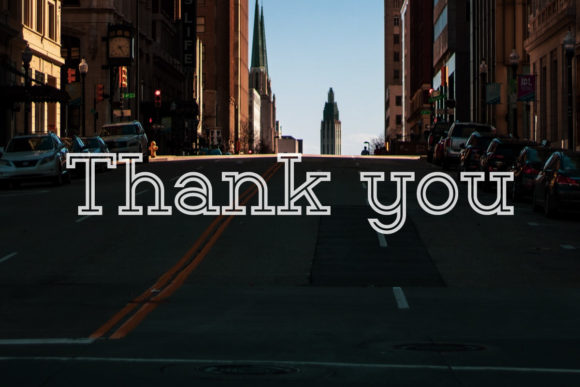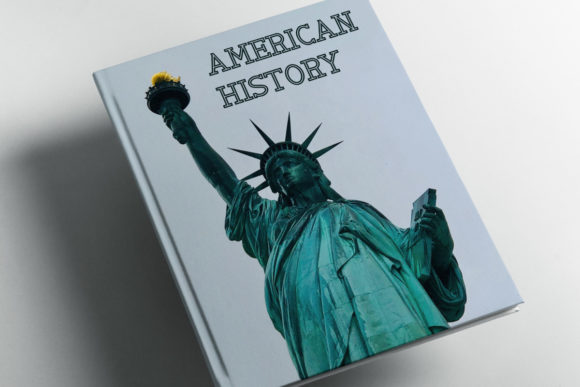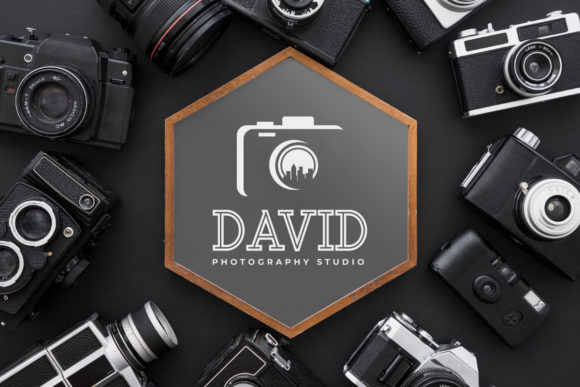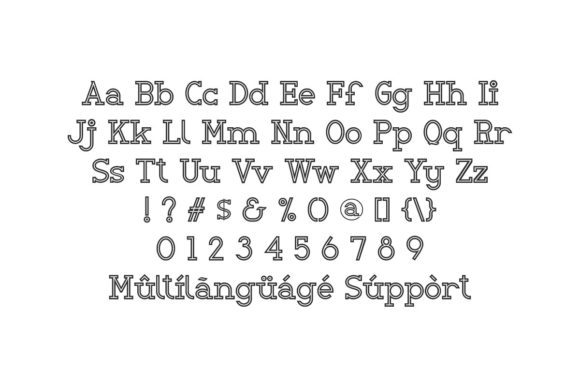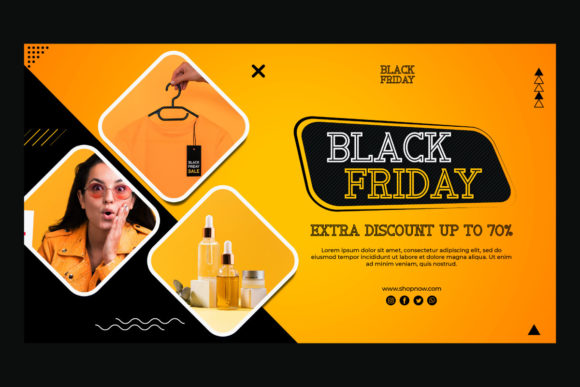
MERTZTOWN FONT SPECIMEN
Introducing Mertztown, a cool and classic slab serif font that brings a touch of timeless appeal to your designs. With its versatile nature, Mertztown works seamlessly across a variety of casual and fun design ideas. This font is a limitless tool, allowing you to unleash your imagination and create captivating visuals.
Mertztown’s cool and classic aesthetic makes it an excellent choice for a wide range of design projects. Whether you’re working on posters, flyers, invitations, social media graphics, or any other casual and fun design, Mertztown adds a touch of style and sophistication that instantly catches the eye.
One of the key strengths of Mertztown lies in its versatility. The font effortlessly adapts to different design themes and concepts, giving you the freedom to explore and experiment. Its timeless appeal brings a sense of familiarity and comfort, while its subtle details and clean lines provide a fresh and modern twist.
The only limit with Mertztown is your imagination. Let it be your creative companion as you explore various design ideas. Whether you’re aiming for a laid-back and playful vibe or a more sophisticated and refined look, Mertztown delivers the flexibility and adaptability to bring your vision to life.
Mertztown’s classic slab serif design ensures excellent legibility, making it suitable for both display and text purposes. Whether you’re using it for headlines, subheadings, or body text, Mertztown maintains readability without sacrificing its cool and classic charm.
In summary, Mertztown is a cool and classic slab serif font that embraces a wide range of casual and fun design ideas. With its versatile nature and timeless appeal, it is a font that sparks creativity and unlocks unlimited possibilities. Allow Mertztown to be your go-to choice, and watch as your designs come alive with style and imagination.